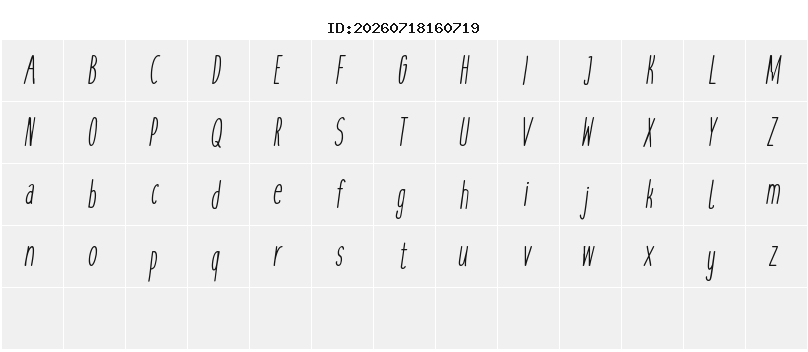
• Font Name: cookies&milk Italic
• Designer: Philip Trautmann
• Manufacturer: phitradesign
About cookies&milk Italic.ttf
cookies&milk Italic.ttf is a modern, elegant sans-serif font designed for ultimate readability and visual harmony. Perfect for branding, headlines, web design, and print materials.